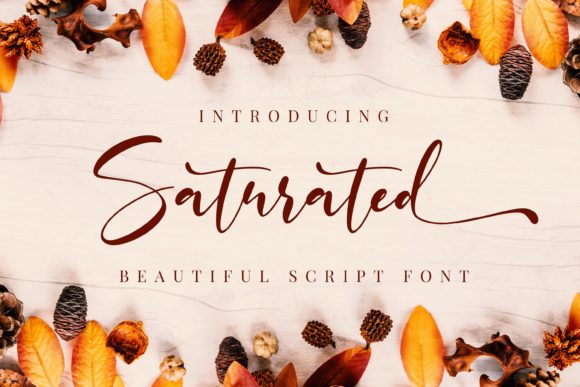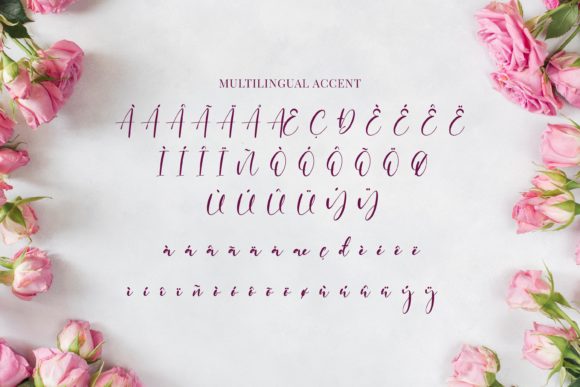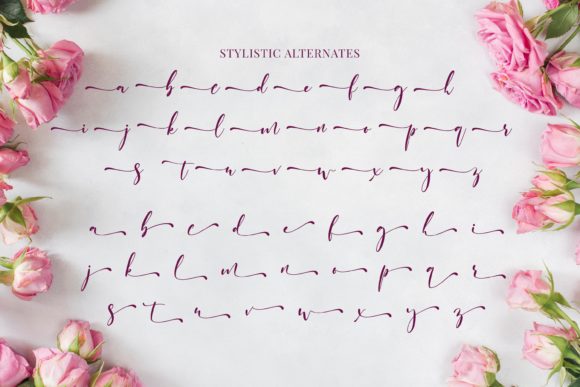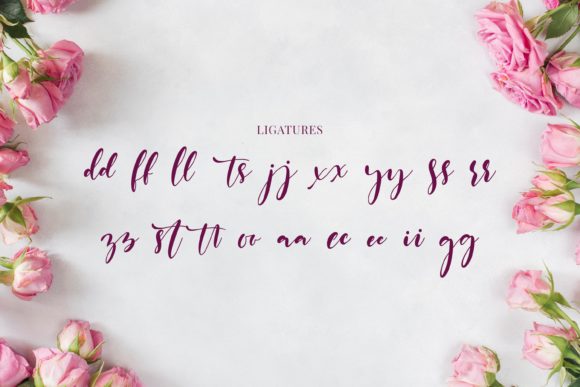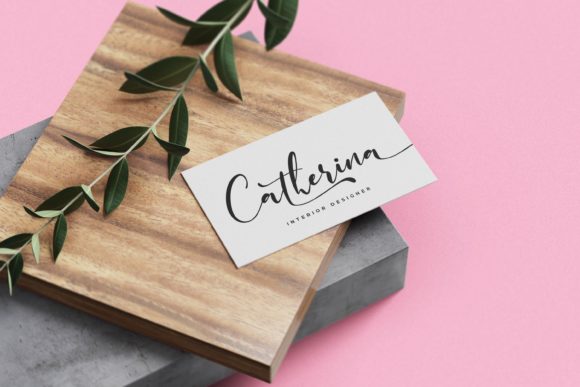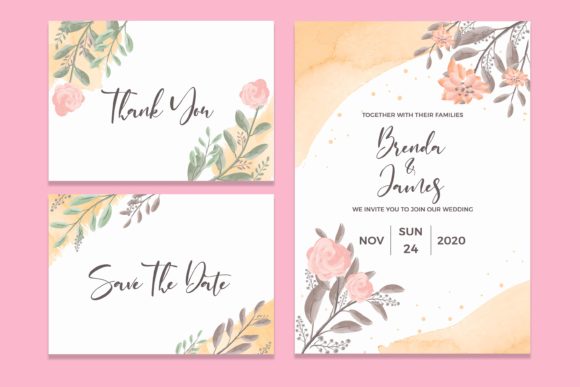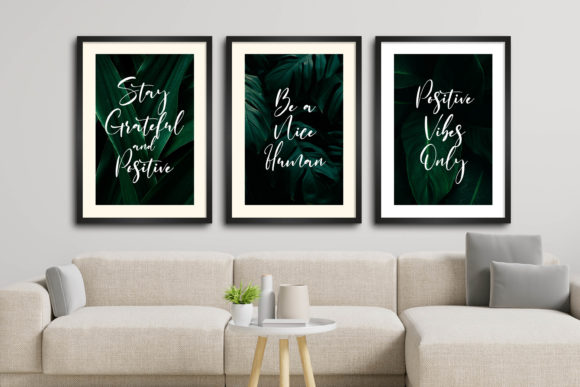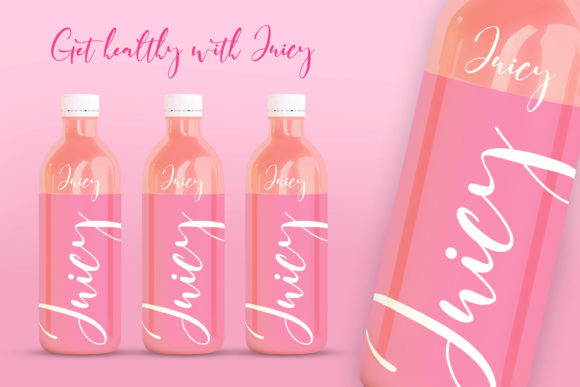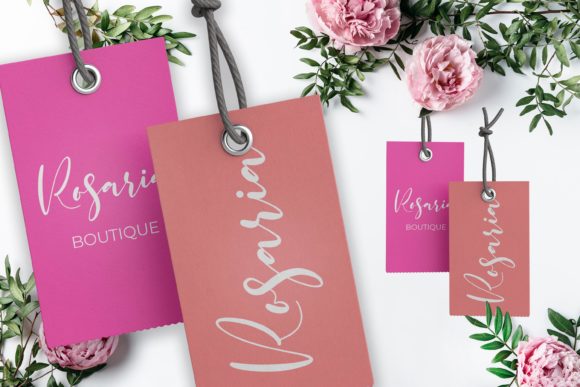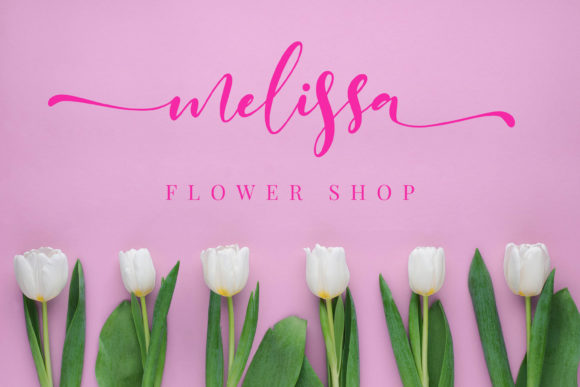
Saturated Font
About Saturated Font
Saturated is a script font with a natural handwritten feel and perfect for any creative design. Fall in love with its authentic feel and use it to create gorgeous wedding invitations, beautiful stationary art, eye-catching social media posts, and cute greeting cards.